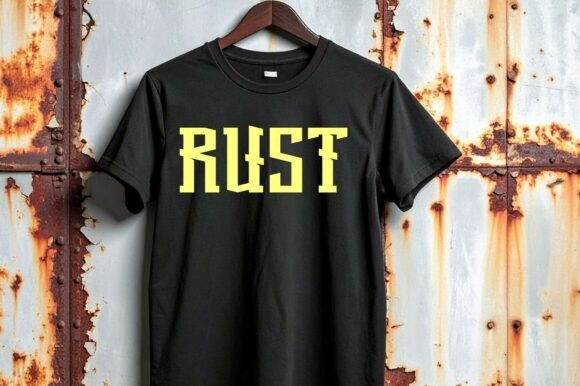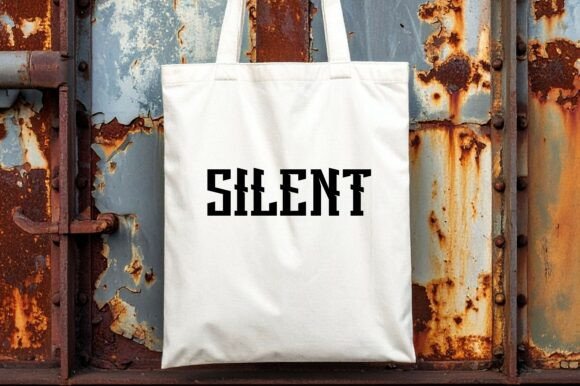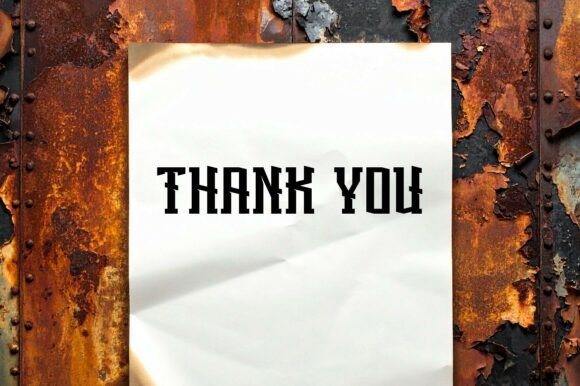
Designing the Future: The Unstoppable Power of Anterobot Font
Imagine you’re working on a high-stakes project – a sci-fi movie poster or a futuristic video game title – and you need a font that can convey the raw power and technological advancement you’re trying to convey. You start browsing through font libraries, and suddenly, you stumble upon it: Anterobot Font. Its blocky, stencil-like letters immediately transport you to a world of industrial design, mechanical precision, and dystopian landscapes.
As a designer, you know how crucial it is to have the right tools to bring your vision to life. Anterobot Font is one of those tools that can make a significant difference in your project’s success. With its commanding visual impact and ability to instantly communicate a sense of advanced technology, durability, and raw power, this font is a game-changer for designers looking to create bold, modern, and gritty designs.
Key Features of Anterobot Font
- Unique Characteristics: Anterobot Font features a futuristic and industrial design aesthetic, with distinctive geometric shapes and a bold, sans-serif appearance.
Anterobot Font Review
I recently had the chance to work with the Anterobot font, and I’m excited to share my honest review with you. Here’s what I think:
- The unique blend of futuristic and robotic elements makes it perfect for tech-related designs.
- The font is highly customizable, allowing you to tweak the settings to suit your specific project needs.
- The Anterobot font is highly legible, even at smaller font sizes, making it suitable for various design applications.
- The font may not be ideal for body text, as it can be quite ornate and overwhelming.
- Some users may find the font’s bold and futuristic style to be too loud or overwhelming.
- The font’s compatibility may vary across different operating systems and devices.
The Anterobot font is a bold and futuristic typeface that’s perfect for tech-related designs, such as sci-fi projects, robotics, or futuristic interfaces. While it may not be suitable for all design applications, it’s definitely a great choice for those looking to add a touch of futurism to their work. With its high level of customization and legibility, the Anterobot font is definitely worth considering for your next design project.
Tips for Getting the Most Out of Anterobot Font
Experiment with different font sizes and styles to create a unique look. Use the Anterobot Font in combination with other fonts to create a visually appealing design. Consider using the font in bold or italic styles to add emphasis to your text.
The Anterobot Font is perfect for creating futuristic, tech-inspired designs. Use it for headings, titles, or body text in graphic design, web design, or digital art projects. The font’s unique style makes it ideal for creating a bold and eye-catching visual identity.